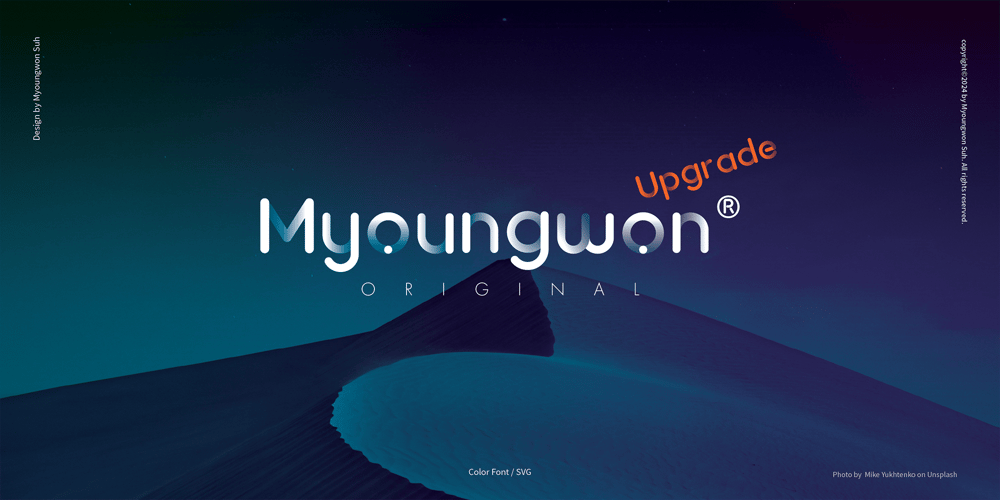
Myoungwon Font Family was designed by Myoungwon Suh and published by Designsuh. Myoungwon contains 23 styles and family package options. Font ‘myoungwon’ is a ‘colorfont’ that contains a color(Gradient) other than the existing one of a single color font. You can use it on Photoshop(since CC 2017), illustrator(since CC 2018), InDesign(since cc 2019), QuarkXpress(since 2018), Pixelmator(since macOS 10.14 Mojave), Sketch(since macOS 10.14 Mojave), Affinity Designer(since macOS 10.14 Mojave), Paint.NET(windows only), Microsoft edge(since 38 on windows 10), Safari(since 12, macOS 10.14 & iOS 12), Firefox(since 26), and so on.